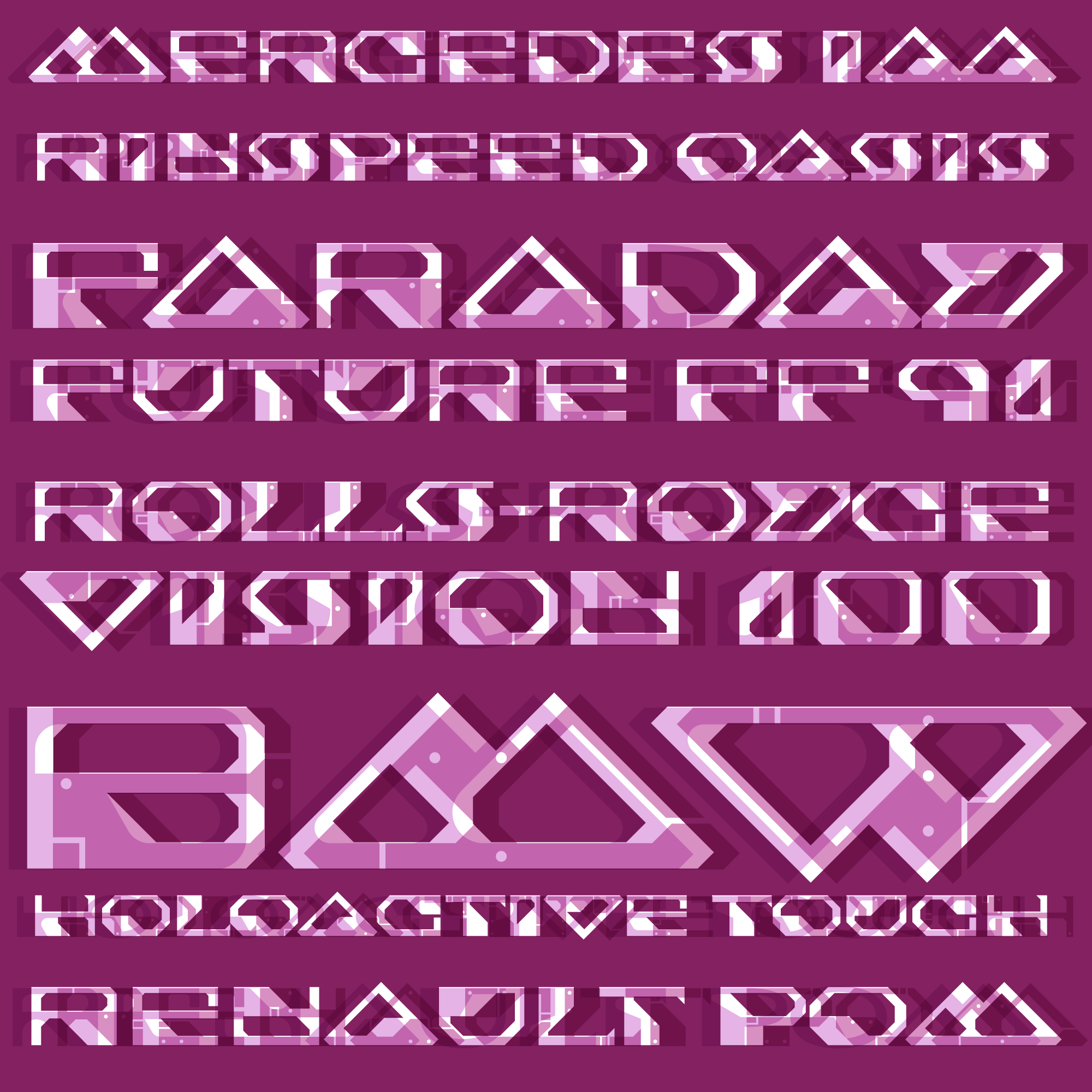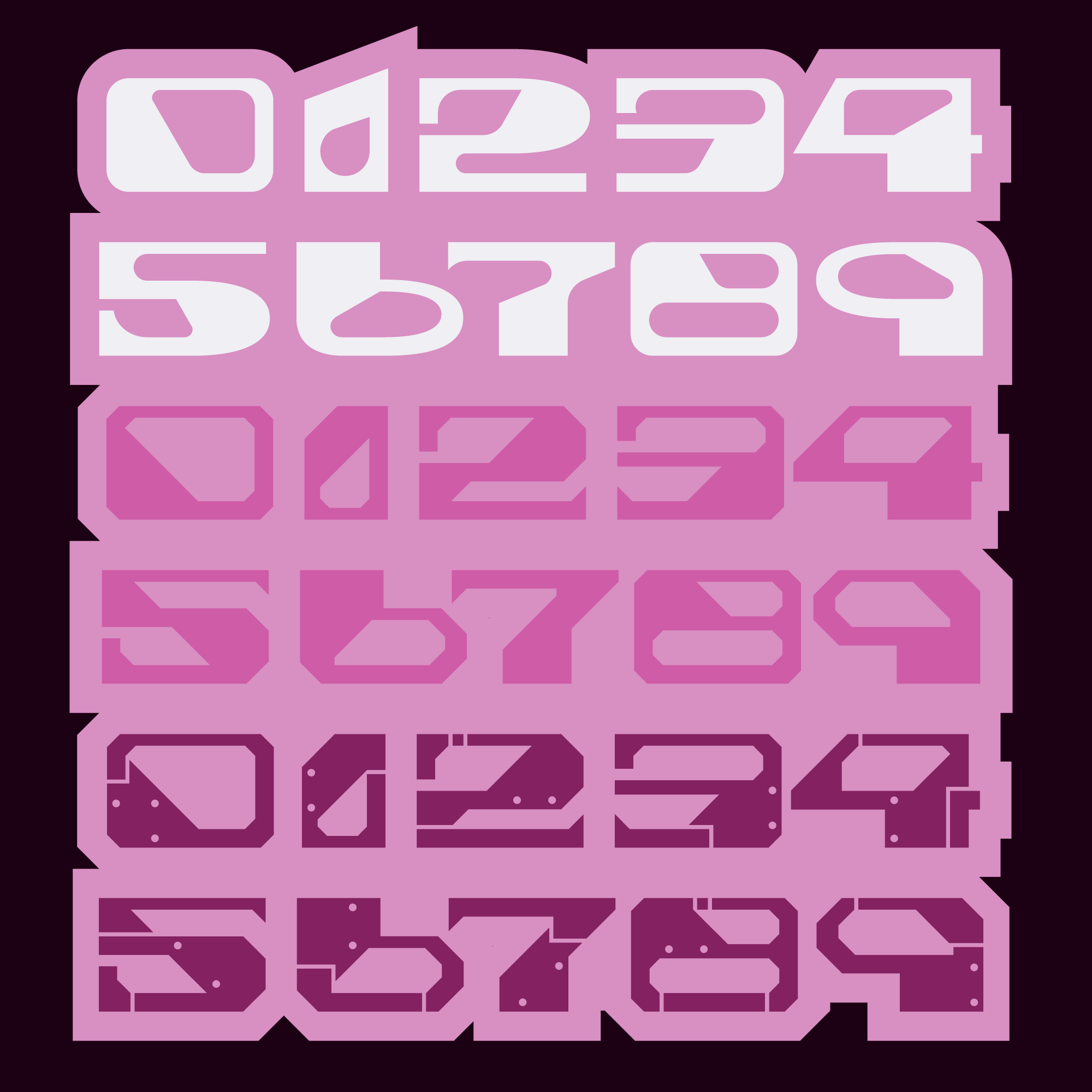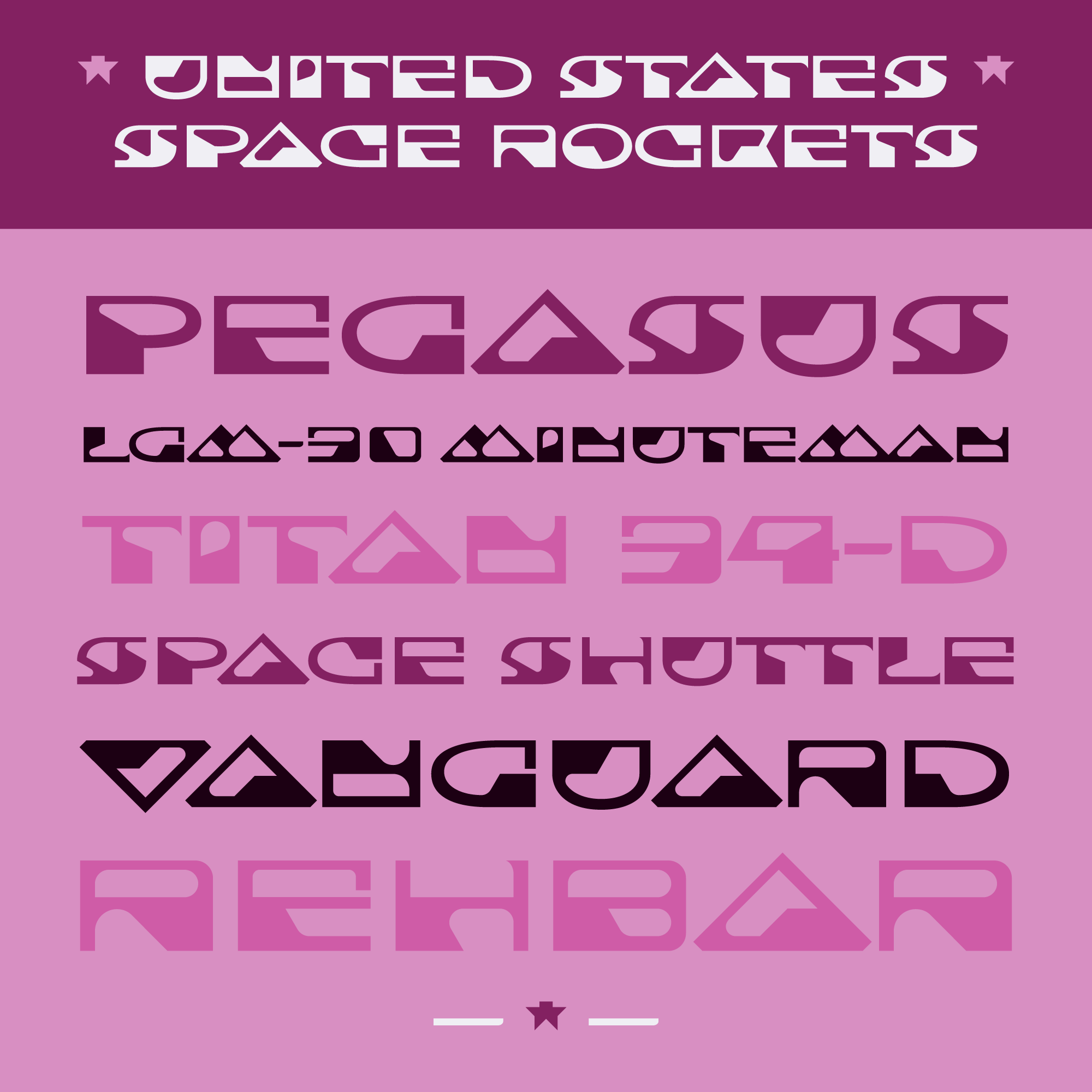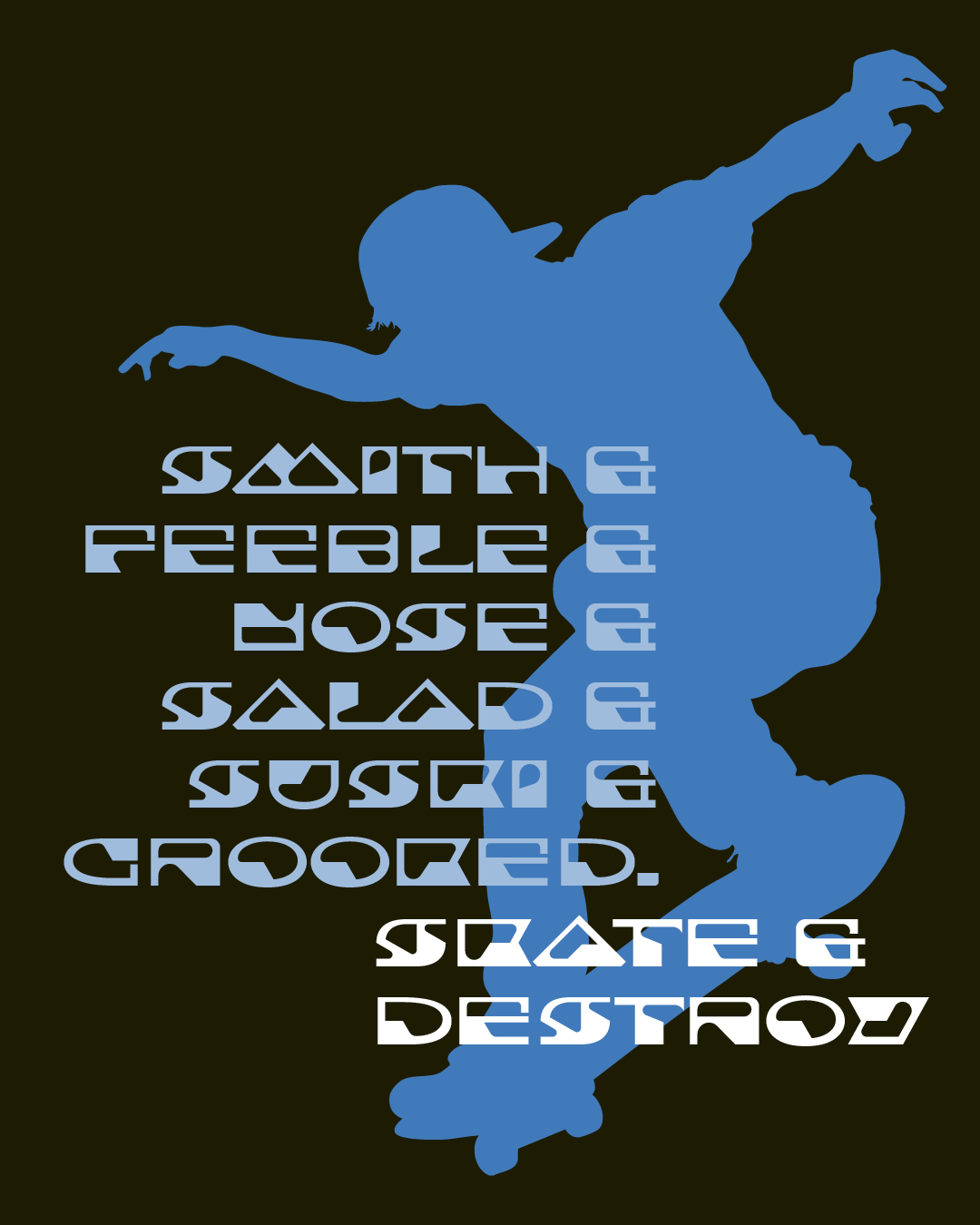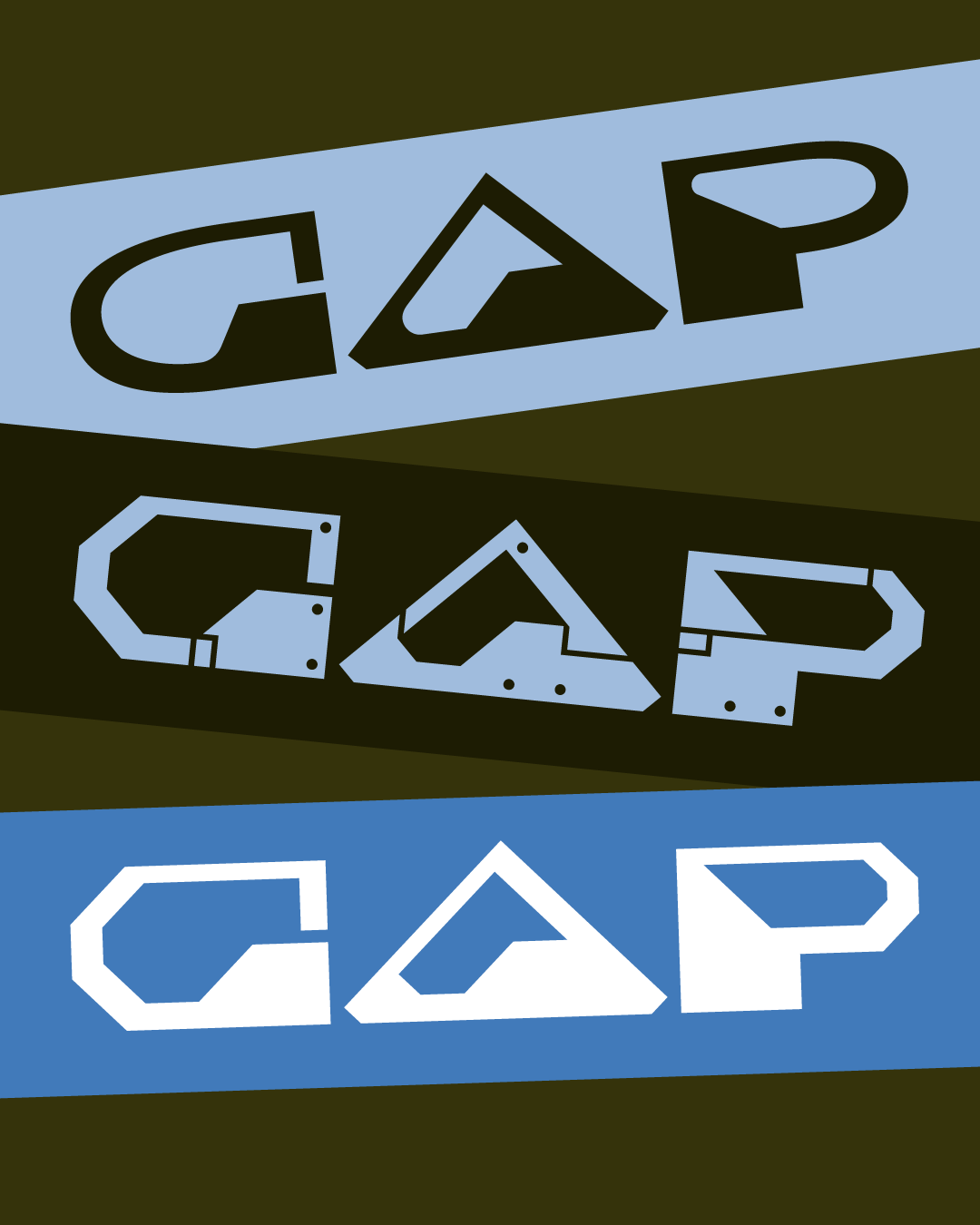
Cortina™
Built for Extreme Velocity.
Designed by Joachim Müller-Lancé
Serendipity often occurs in typefaces from the hand of international, award-winning type designer, Joachim Muller-Lance. The design of Cortina was inspired by a small shape he found by coincidence: a tiny triangular tab in a software panel that resembled a futuristic ‘A’. Joachim then developed the entire concept from this idea into a family of three styles: Cortina Base, Slate, and Plate. Each is modeled on the same conceptual form sharing proportions, but with different features.
The letterform proportions of the Cortina family originated with the half-diamond ‘A’ at 45° angles: 1px up, and 1px wide. From its mass and height, the base rectangle for E, H, N, etc. was drawn slightly shorter to optically match the height of the A, and the width similarly adjusted to optically match the mass of half-diamond. The proportion fell close to 4:3, so this exact ratio was intentionally chosen for the overall design.
Likewise, the elliptical shape of the ‘O’ approximates the triangle and rectangle in optical dimension and is slightly squared to fine-tune its mass. Half-round shapes like C, D, and G were then adjusted to match the ellipse and rectangle.
All outer shapes use sharp angles, and large curves based on ellipses. Any corners sharper than 90° are mitered, at 45° while the angles other than 45° (1:1) follow a 1:2 or 2:1 ratio. The remaining proportions and details were determined aesthetically, to counteract any optical illusions resulting from those conventions set forth in the design of the type family.
Cortina is best used at larger point sizes where the unique forms and details can draw in the viewer’s eye. Put Cortina to work on posters, in games, on packaging, car accessories, book covers, or any project needing a technological edge.